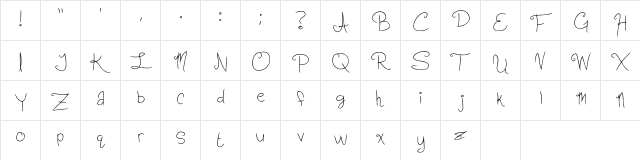
Slightly Cursive Characters Regular
Design Context for Slightly Cursive Characters Typeface
Slightly Cursive Characters flows with the natural rhythm of handwritten lettering, making it ideal for designs that call for warmth and personal expression. The delicate stroke weight brings airiness and refinement to layouts.
Font Pairing: Combine Slightly Cursive Characters with a simple geometric sans for maximum contrast — the tension between flowing curves and clean structure is a classic typographic pairing.
Pro Tip: Use Slightly Cursive Characters for short runs of text — names, titles, or taglines. Extended body copy in script faces tires the eye quickly.